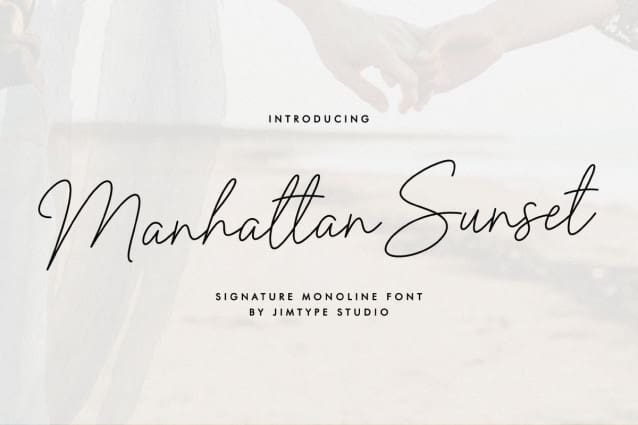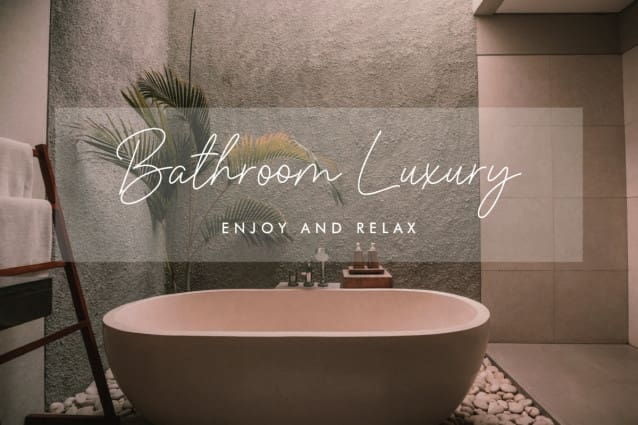
Manhattan Sunset Font
Manhattan Sunset Font, a stylish script font designed to elevate your branding, social media, product design, and advertising projects. Its sophisticated and flowing style brings a touch of elegance to every creation.
Enhance your social media presence with the captivating charm of Manhattan Sunset. Perfect for posts, stories, and promotional graphics, it adds a stylish flair to your design content.